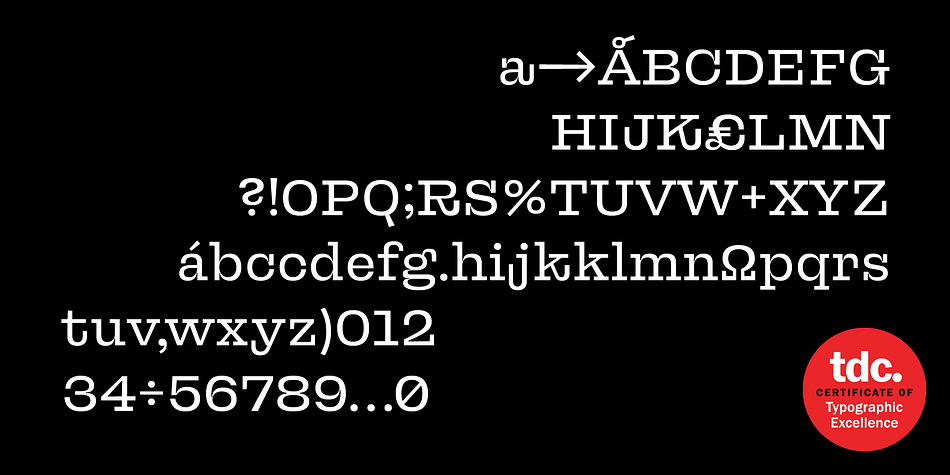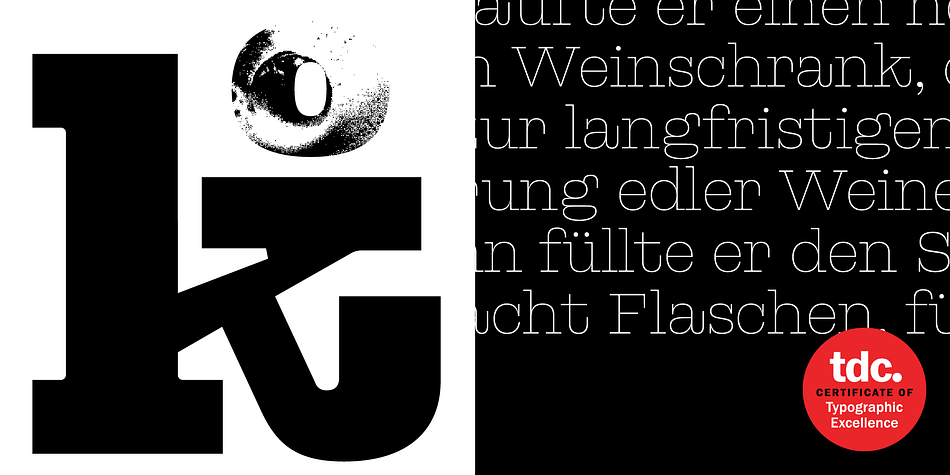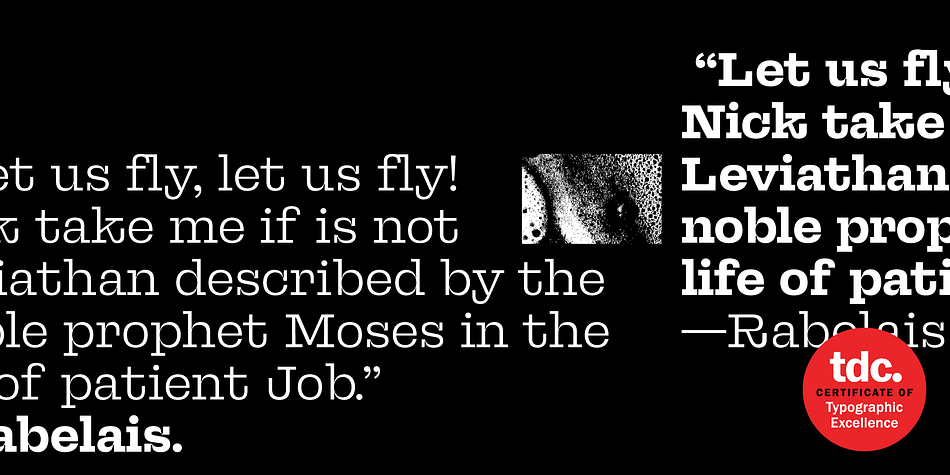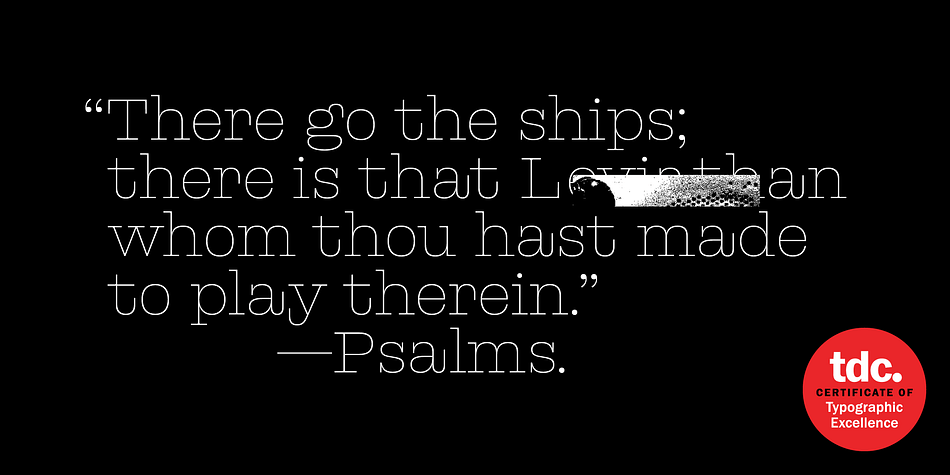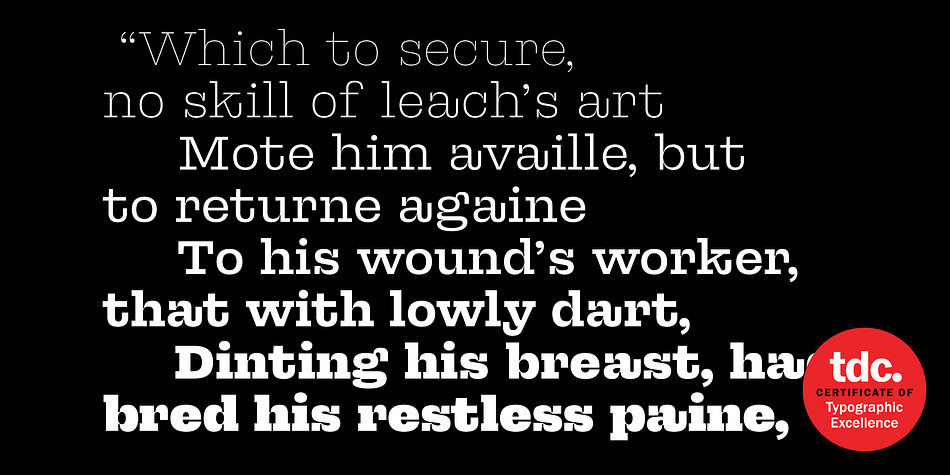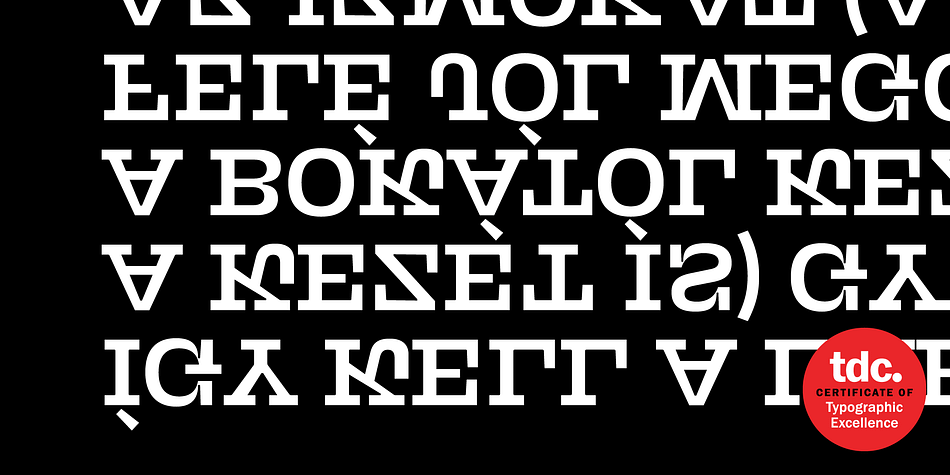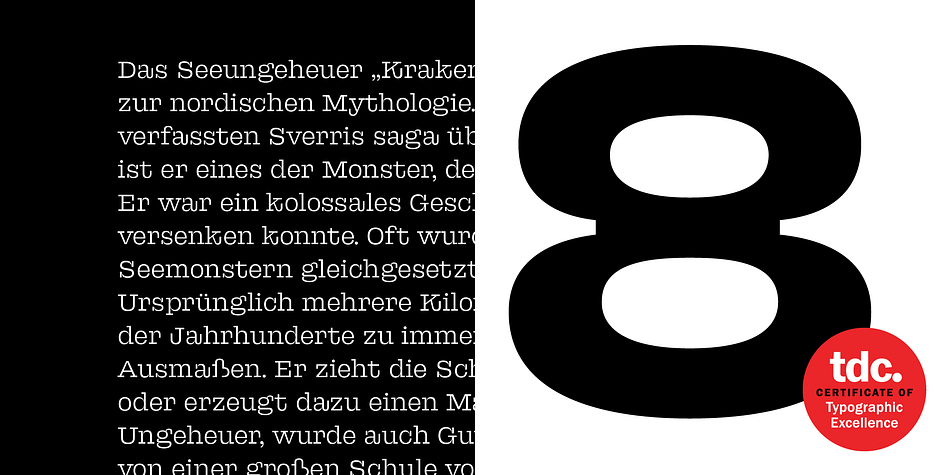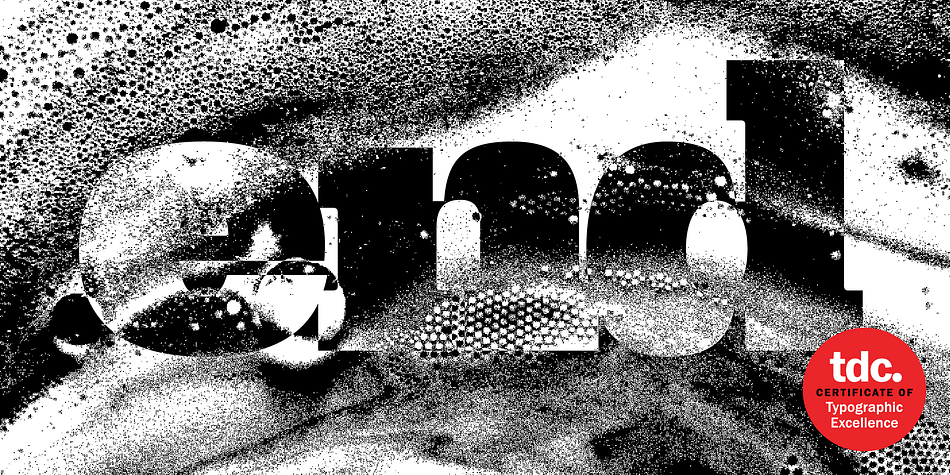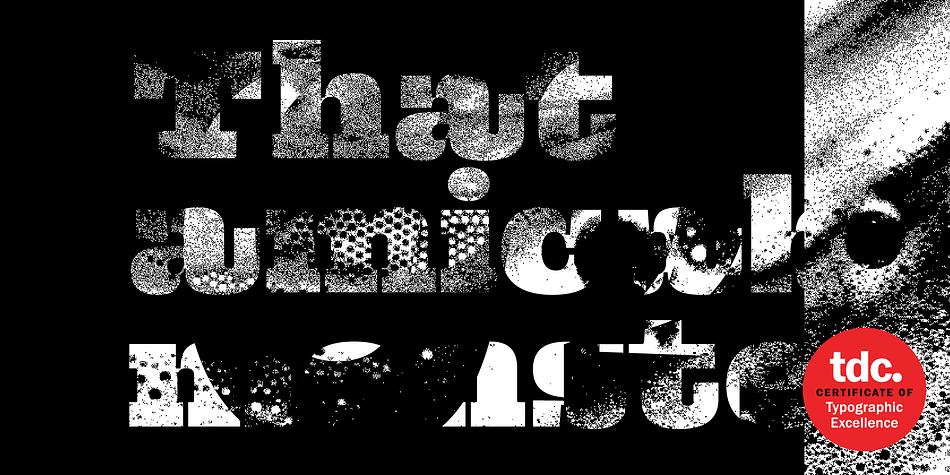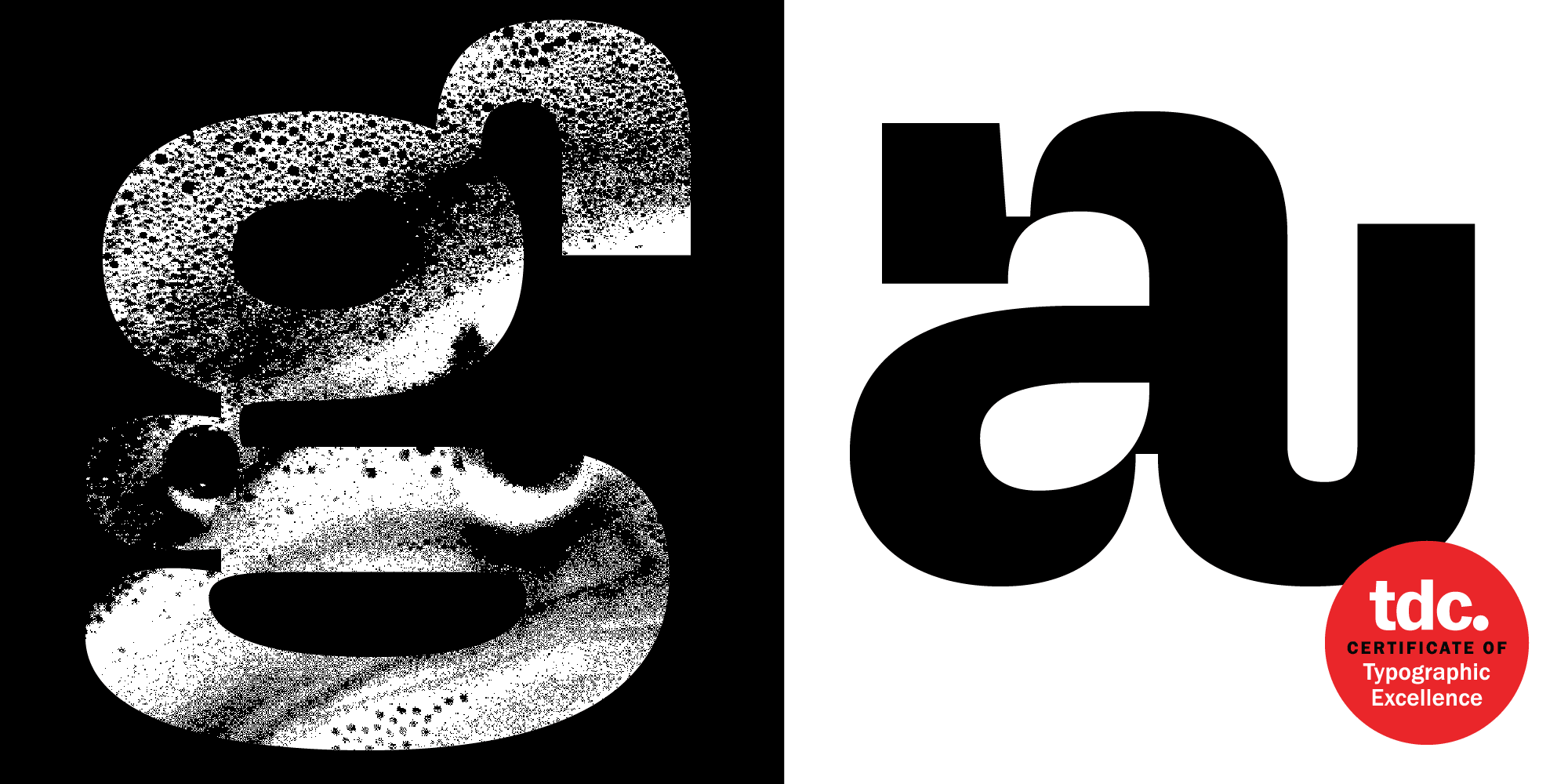
Designed by Béla Frank, FR Kraken Slab is a slab serif font family. This typeface has eight styles and was published by Frank Fonts.
FR Kraken Slab is a mild-mannered monster of a typeface with a sturdy skeleton, characteristic features and a powerful personality.
It is a contemporary design inspired by the raw and lively looks of the English Antiques of the early 19th century. FR Kraken Slab carries the spirit of those models but delivers more than just a digital reproduction of any particular design from that period. It captures and re-creates the character of a style; it is like a collection of afterimages tuned into images once again, a tale truthfully re-told.